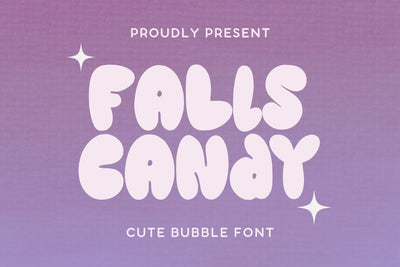
Falls Candy - Cute Bubble Display Font
Hi, Introducing Falls Candy - Cute Bubble Display Font
A display font with a cute and adorable style inspired by bubble shapes. This font is great for news posters, product packaging, quotes, interior design, t-shirts, graphic clothing, online banners, social media, greeting cards, initials, logo designs, event banners, exhibitions, book covers, ebook covers, article title, blog title, craft, DIY, and many other creative ideas